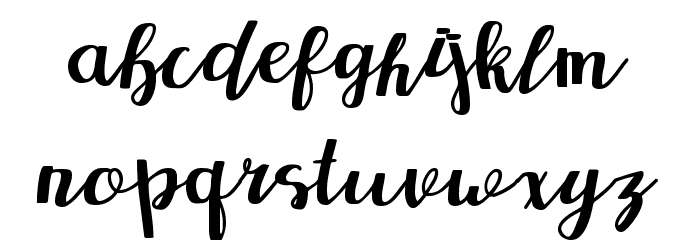
Redbus Font
This font features a playful and energetic script style with a handwritten feel. The uppercase letters are bold and slightly condensed, with unique curves and flourishes that add a whimsical touch. The lowercase letters maintain a consistent flow, with some characters featuring distinctive loops and swashes. The numbers and special characters are designed to match the overall lively aesthetic, making them suitable for creative and informal applications. The font's bold strokes and moderate contrast give it a strong presence, while the character spacing is balanced to ensure readability.
A playful, bold script font with a handwritten feel and whimsical flourishes.
- Proposed Projects: Ideal for greeting cards, invitations, playful branding, and social media graphics.
- Category: Script
- Width: Condensed
- Use Case: Logos, Headlines, Invitations